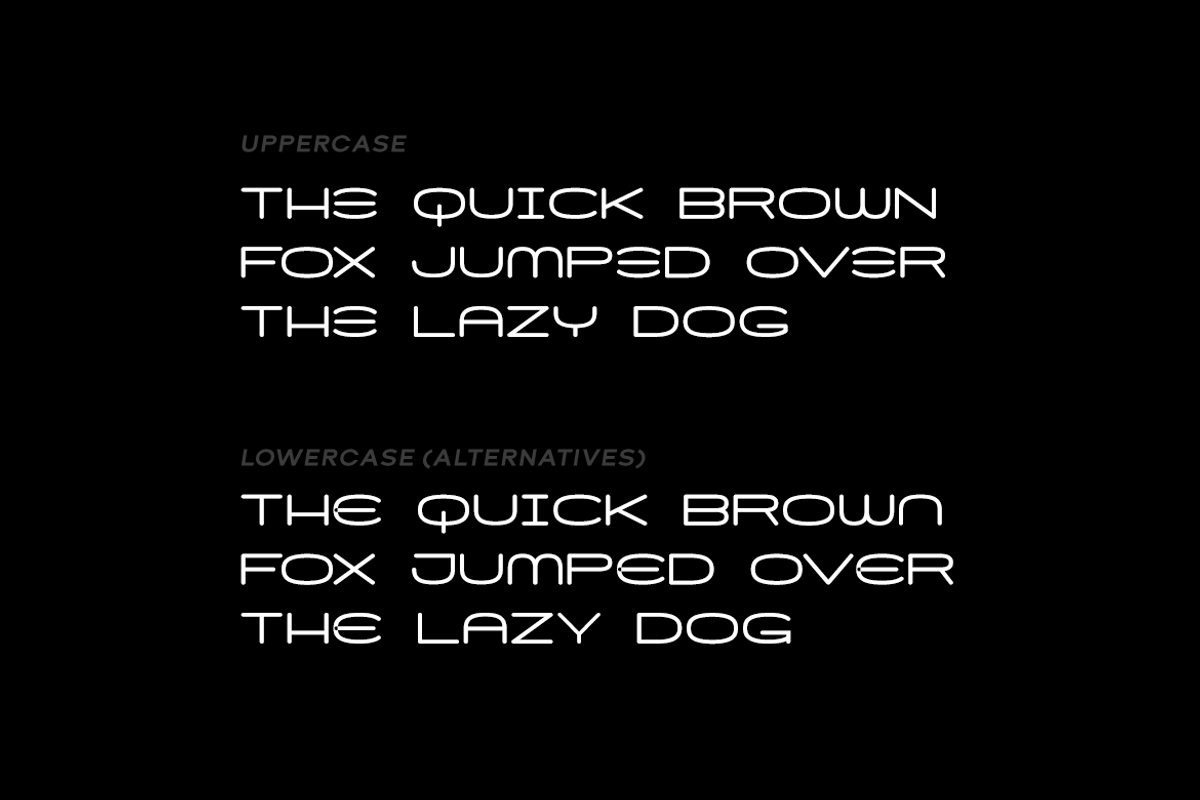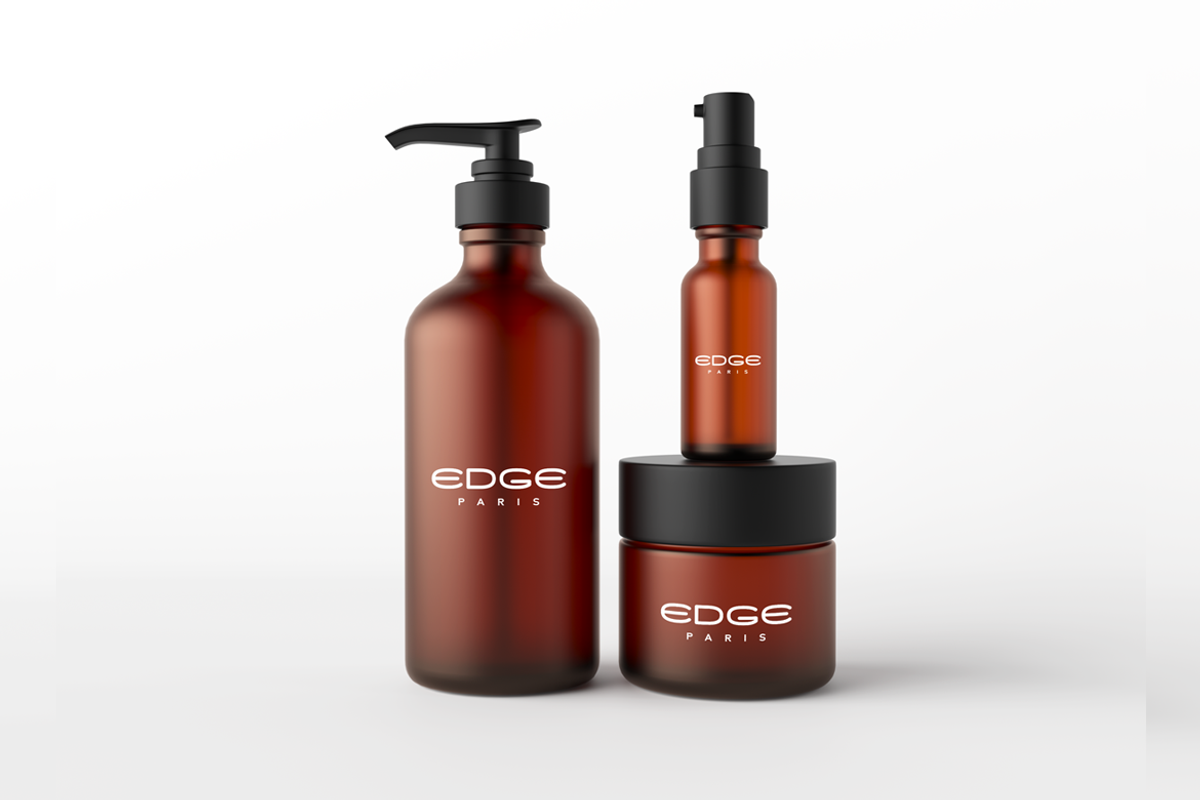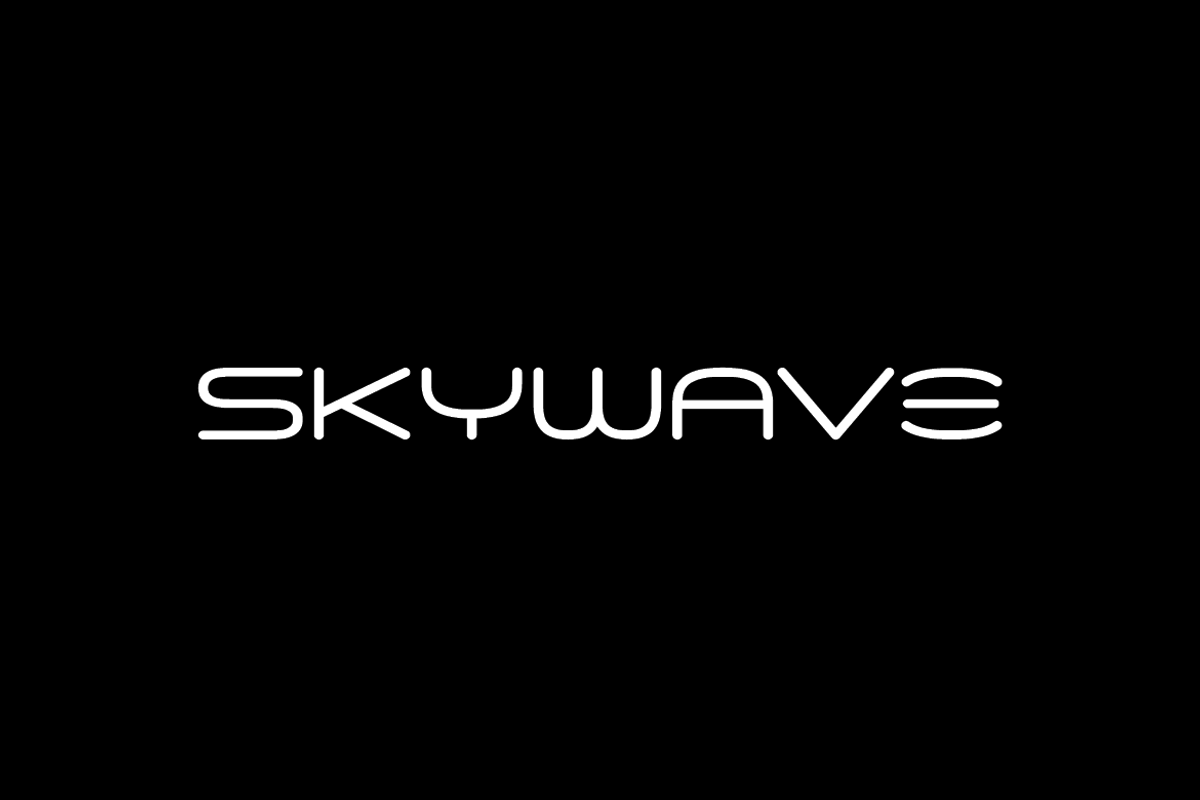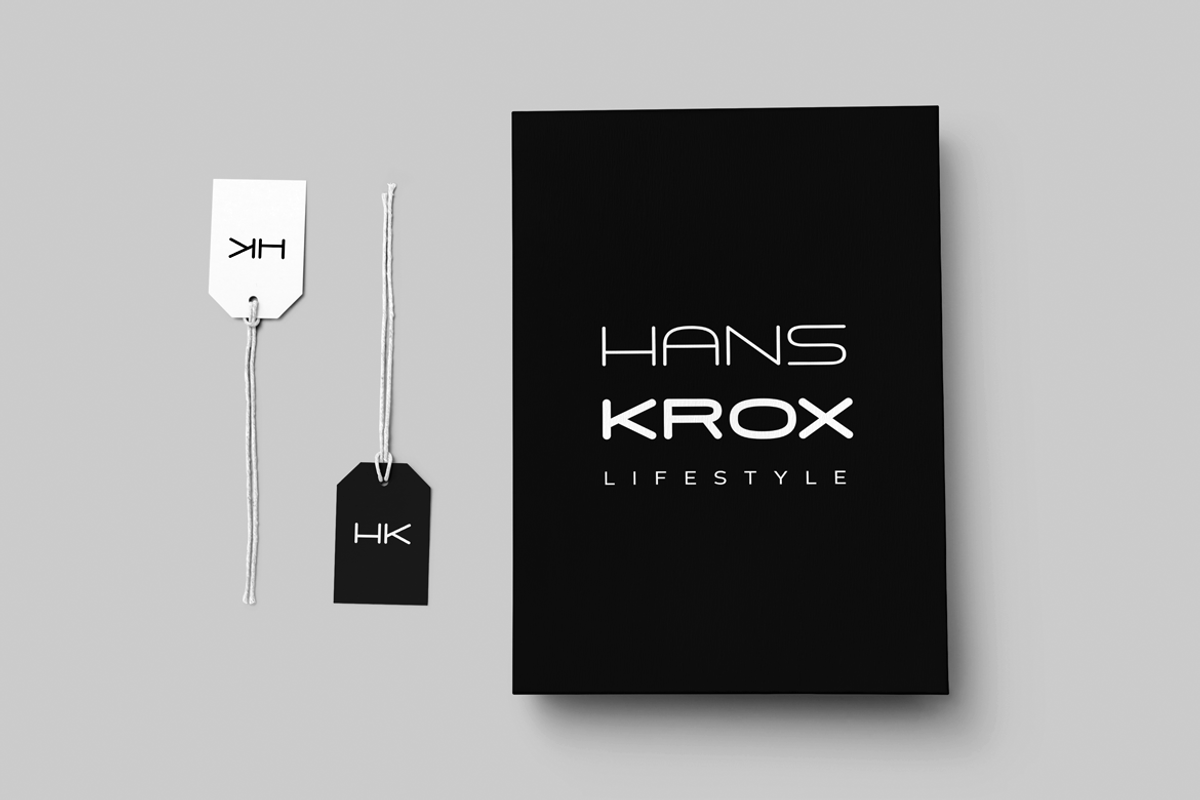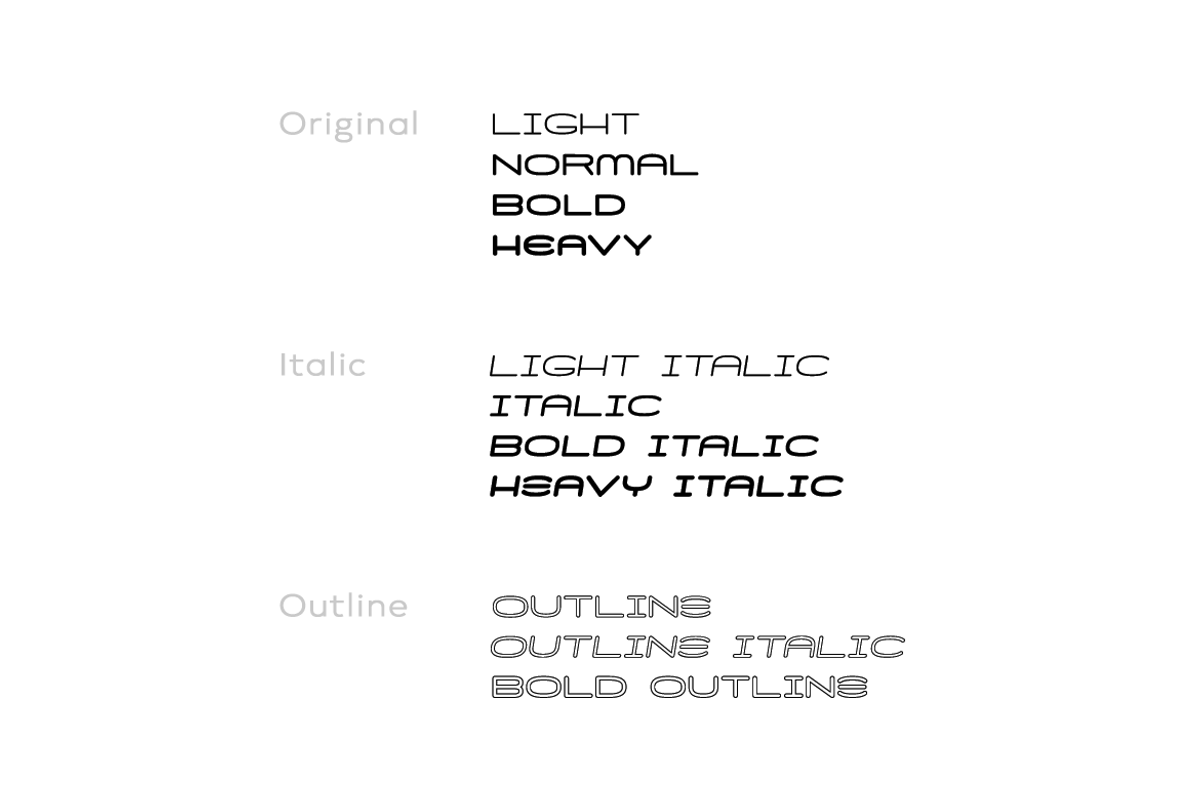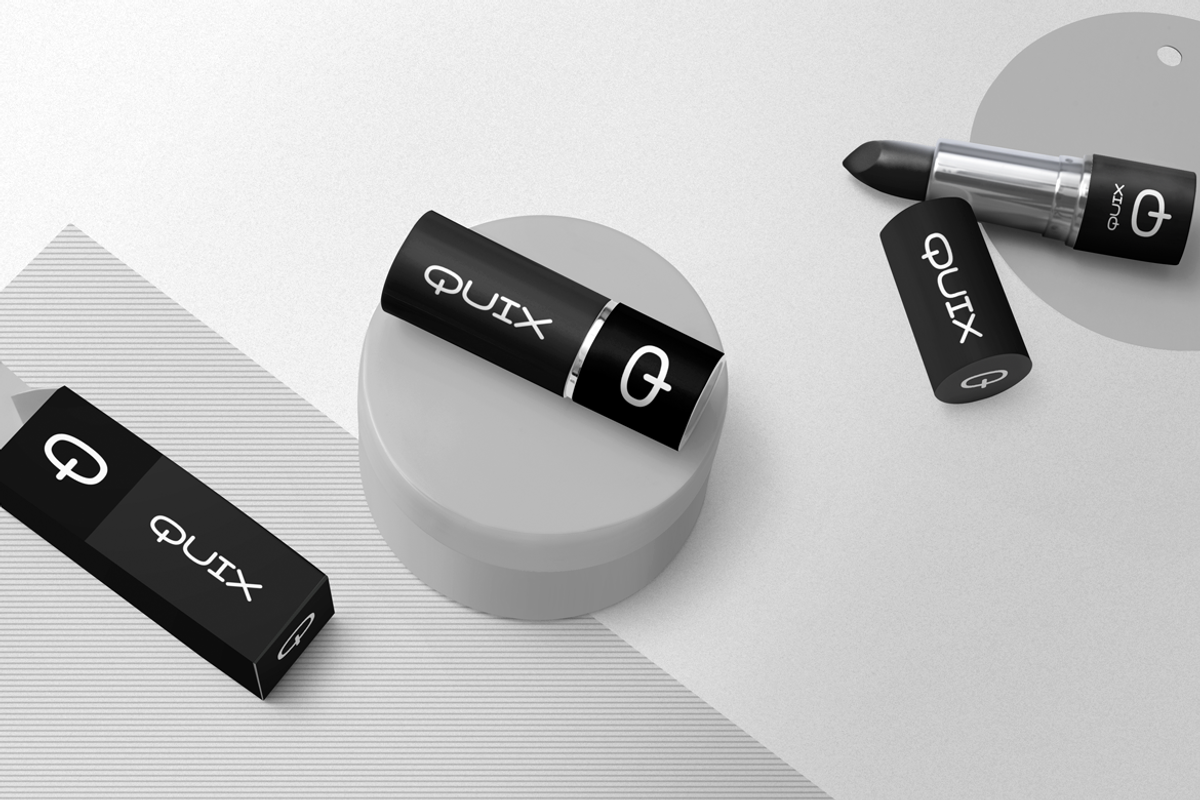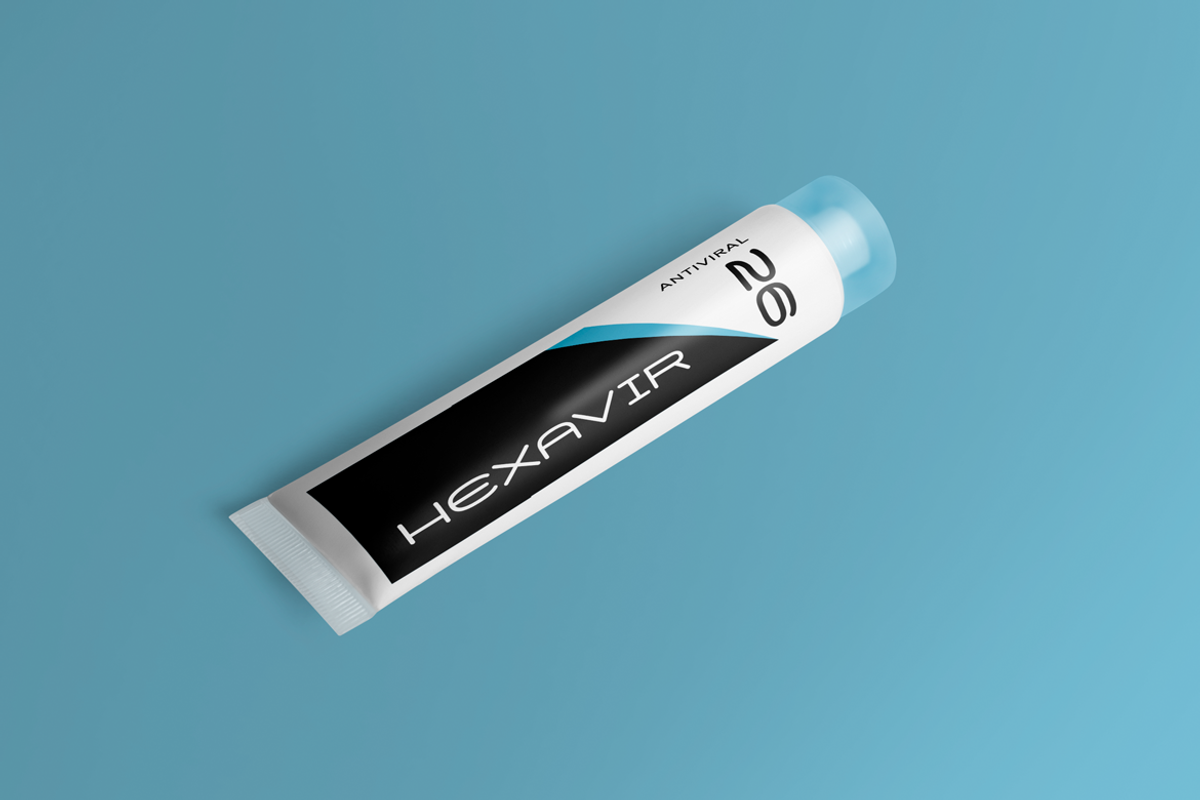
SKYWAVE - Modern Display Typeface
SKYWAVE is a unique & modern typeface inspired from sci-fi design themes, perfectly suited for logotypes, branding, headlines, big text, marketing graphics & display usage. This all-caps typeface (with some alternative glyphs in lowercase) is best for creating great logos, promotional content and marketing graphics that lift the creative aspects of the design. Please see the examples shown above to get an idea about the capability of this typeface.
SKYWAVE comes with 4 weights (Light, Normal, Bold & Heavy) with additional italic versions (all weights) and outline versions (two weights + italic). The pack contains OTF, TTF and Web Fonts (all EOT, SVG, TTF, WOFF, WOFF2 everything is included).